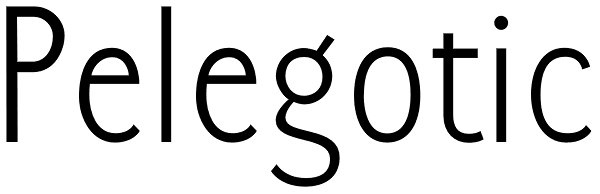
Pelegotic
Pelegotic makes you think of Scandinavian pioneer design, with its functional letterforms and architectural look. It is also a very versatile typeface, and fits easily as headline type for a magazine, or as part of a graphic profile for a company...